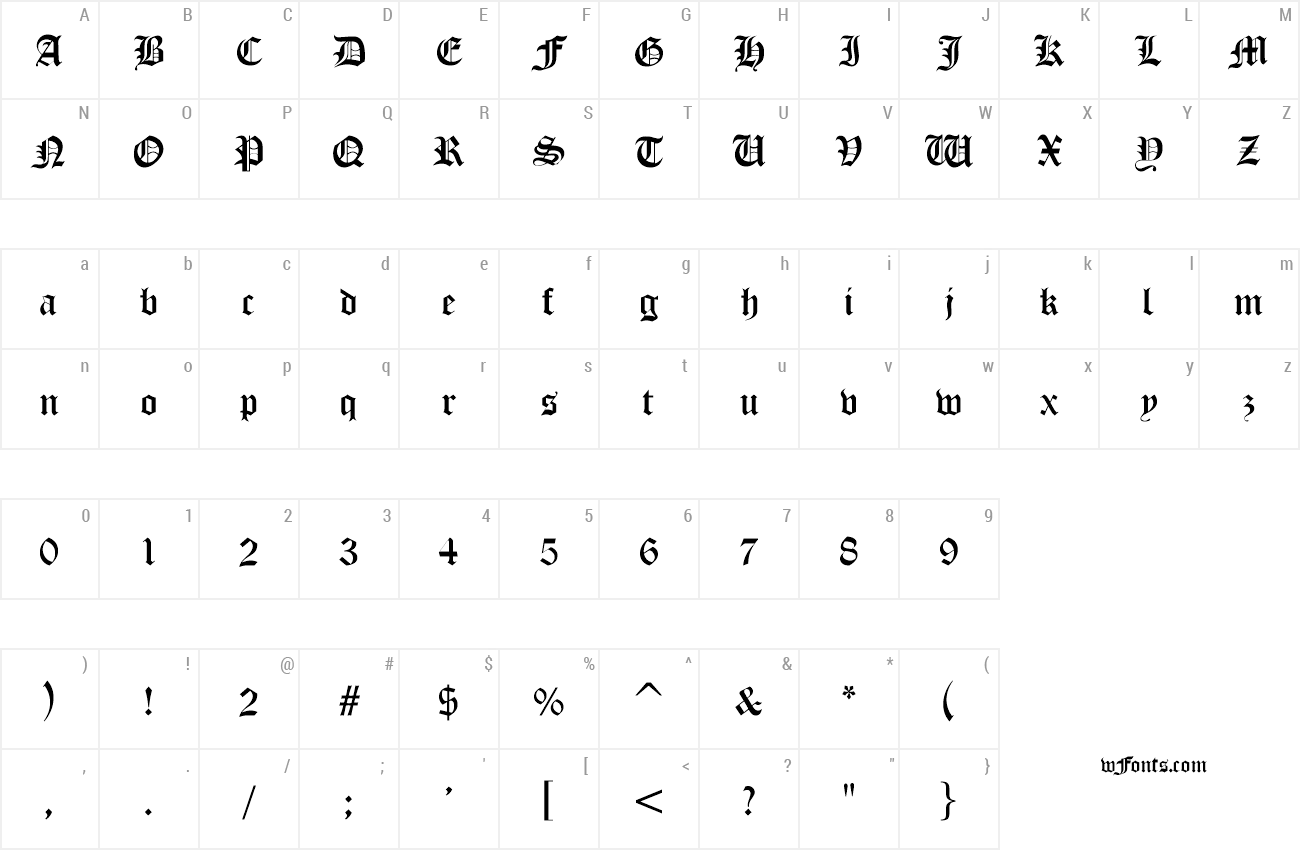
Old London Font
Old London Font - Old london is a calligraphy type font that can be used on any device such as pc, mac, linux, ios and android. Old london à by dieter steffmann. The old london font has been downloaded 303,726 times. This font has 4 styles available ( old london old londona oldlondon old london. Download and install the old london font by dieter steffmann. Download old london font family · free for commercial use · copyright (c) typographer mediengestaltung, 2000.